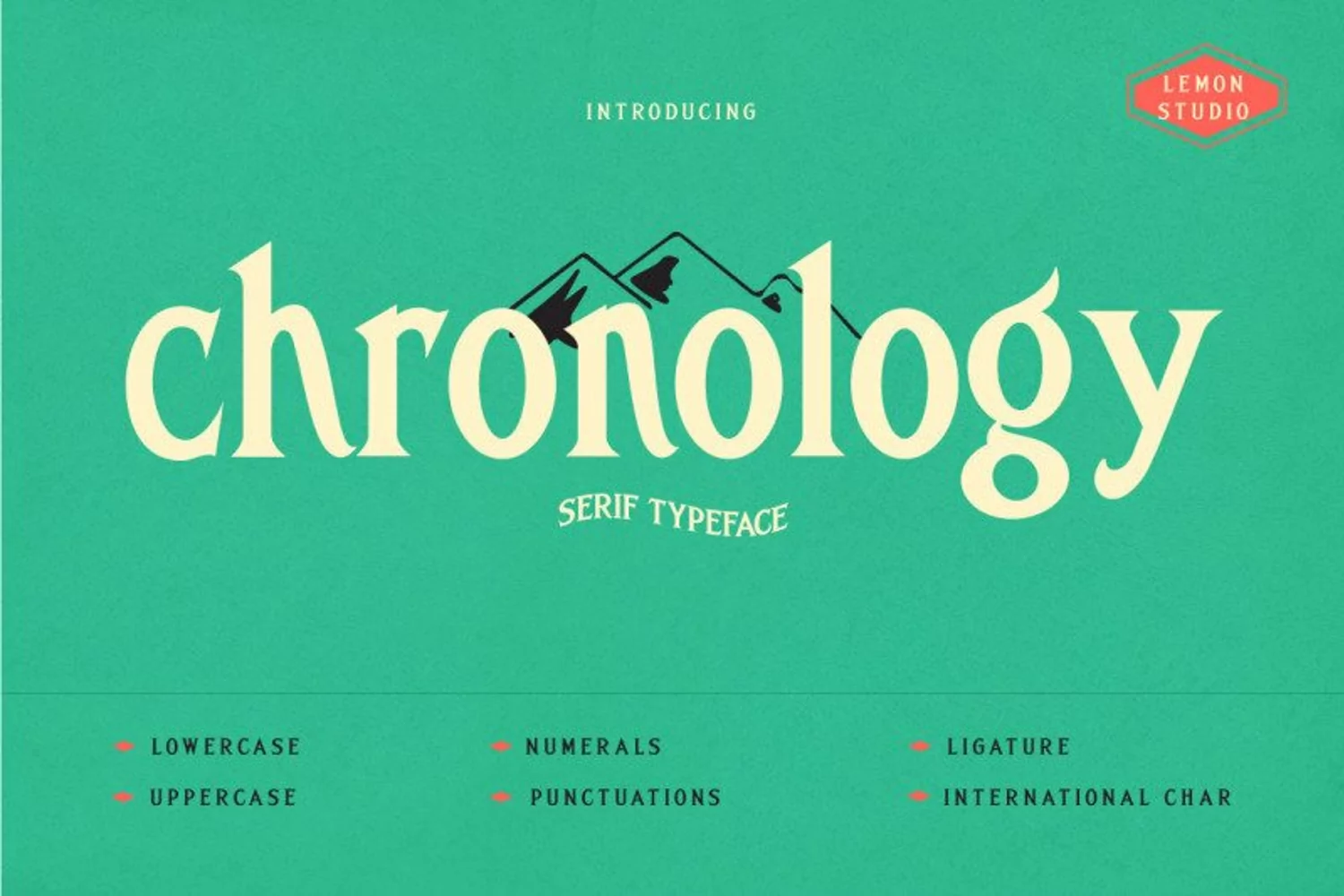
Chronology
Chronology is a serif font with a strong retro style. Included with :
• Lowercase;
• Uppercase;
• Numerals & Punctuations;
• Ligatures;
• International Characters.
Chronology so perfect for your retro style needs such as a posters, covers, labels, logotypes, etc.
By Lemon studio type